Graffiti fonts are a typographic style inspired by urban street art. Their raw, edgy, and creative spirit comes together in the graffiti culture. Most of them are designed to evoke the look and feel of spray-painted or hand-drawn letterings found on walls, trains, and other public spaces, usually with a number of bold, exaggerated shapes and vivid color schemes.
DinoType Donut font
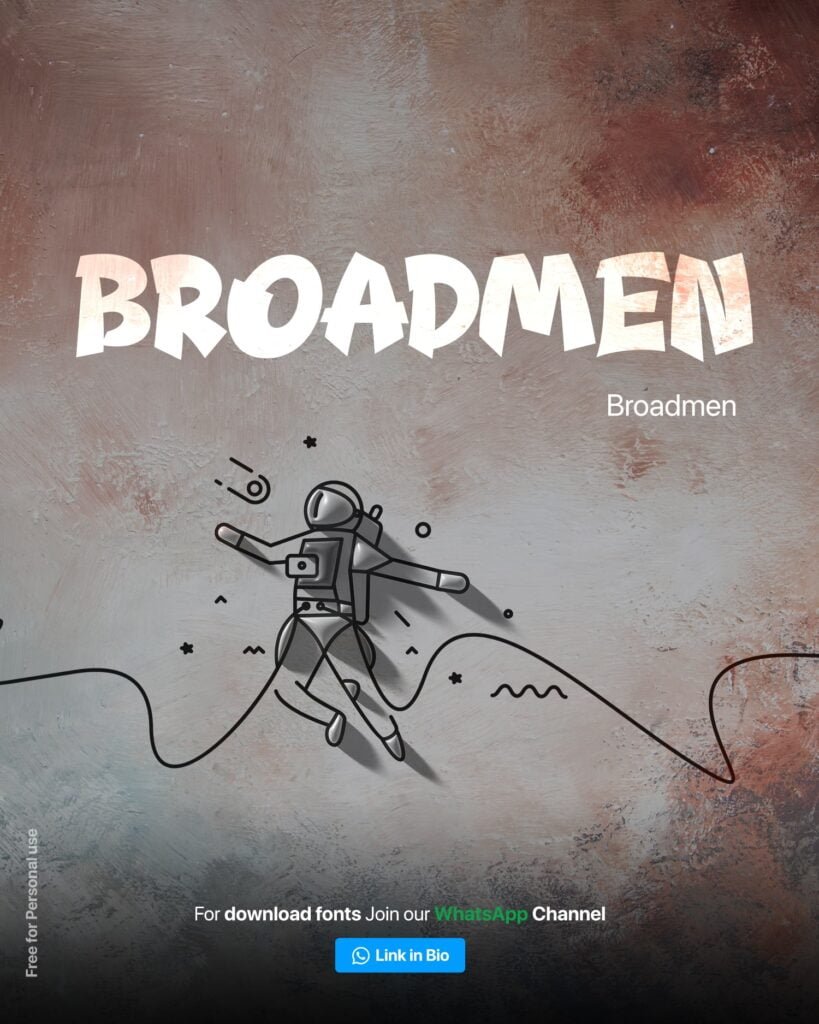
Broadmen font
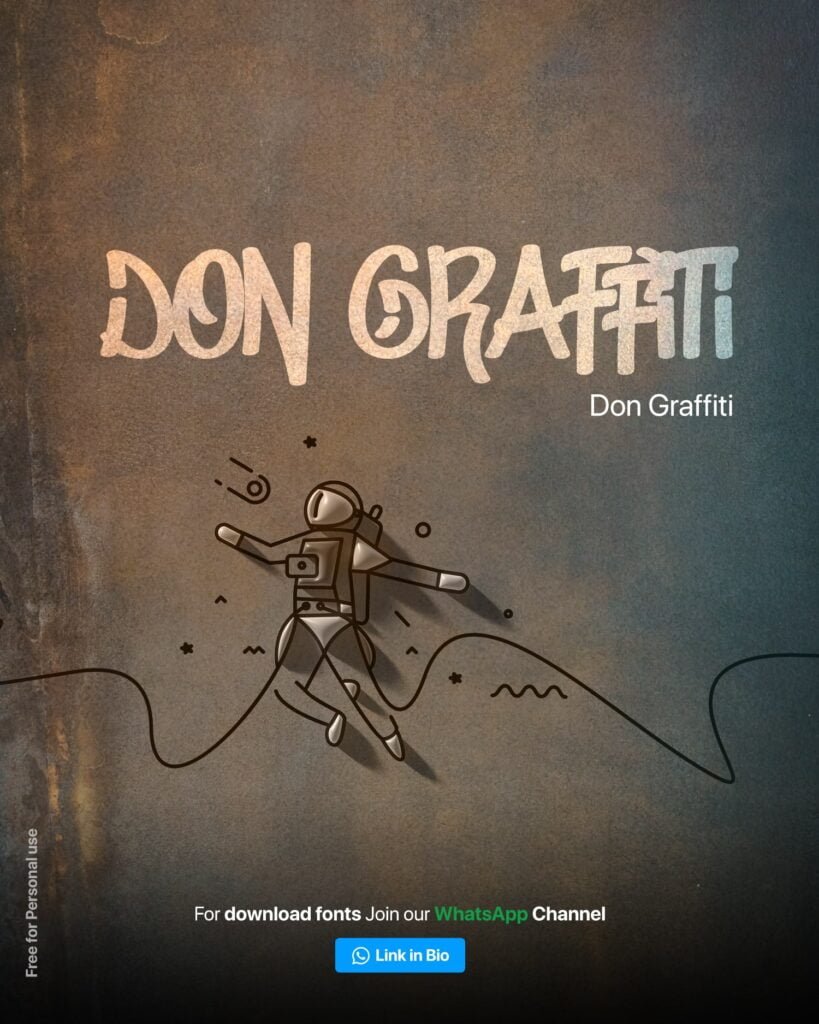
Don Graffiti font
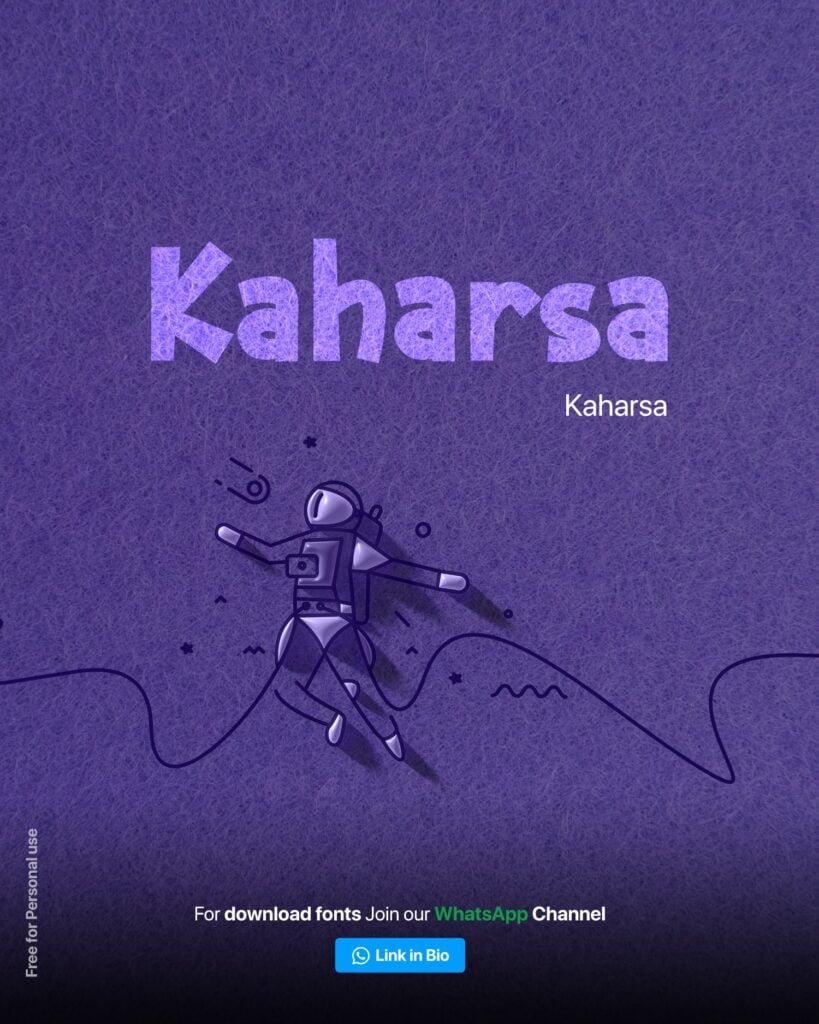
Kaharsa font
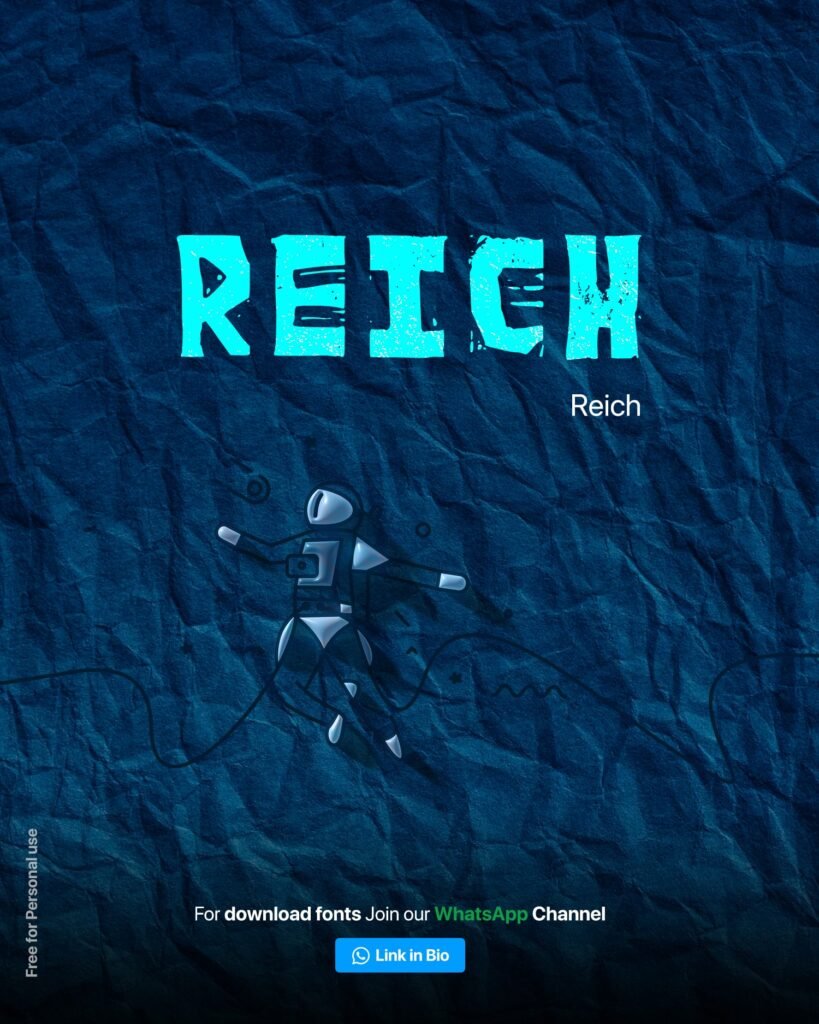
Reich Font
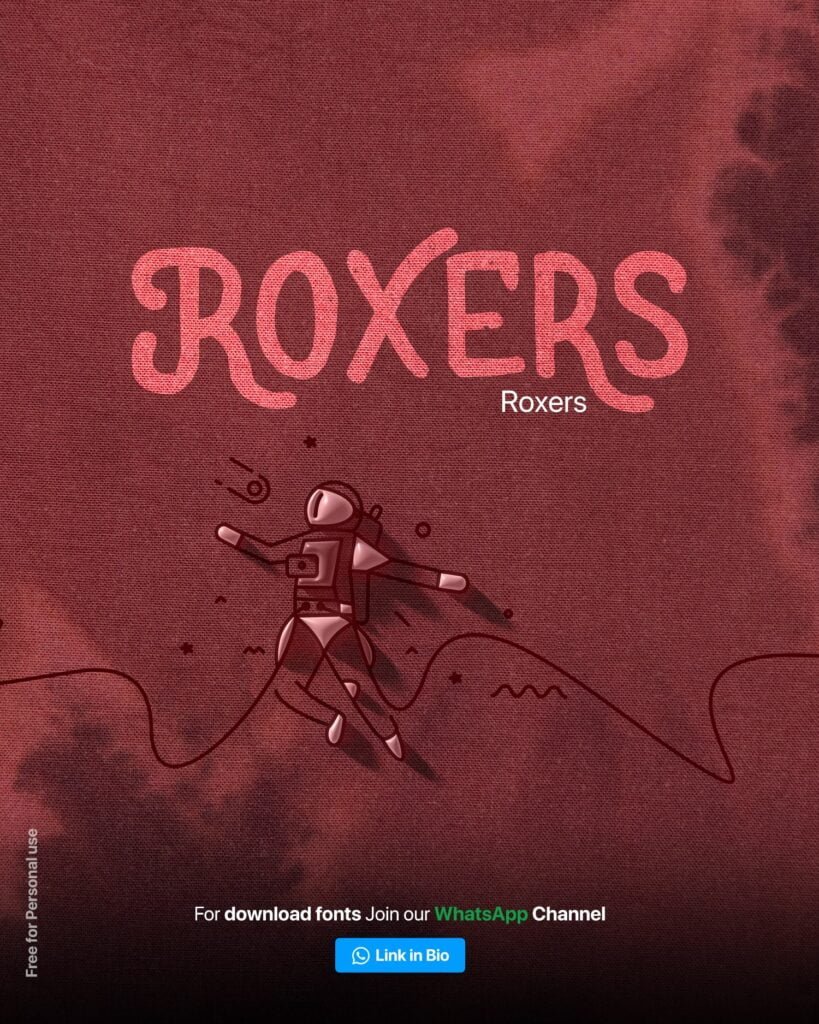
Roxers Font
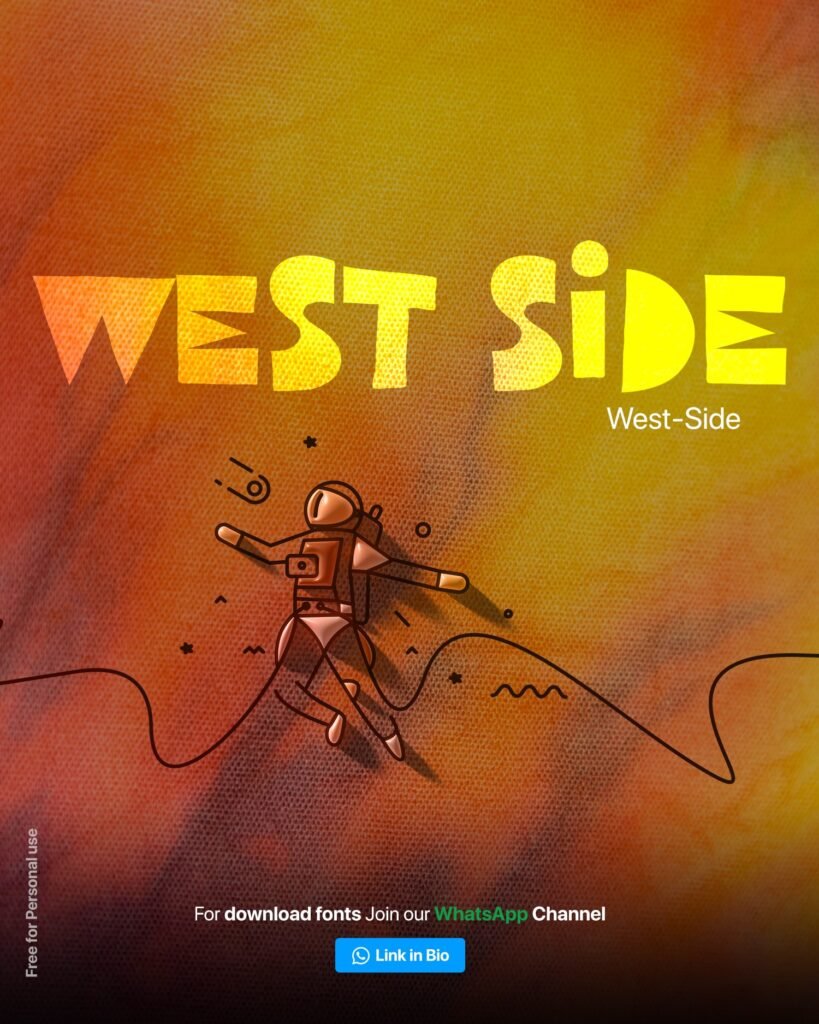
West Side Font
Uses of Graffiti Fonts
Social Media Graphics: These fonts are perfect to be used for creating eye-catching, dynamic posts for platforms like Instagram or Twitter, especially targeting a younger, trend-conscious audience.
Album Covers: Graffiti fonts have become common in album artwork, especially when dealing with hip-hop, punk music, or electronic music.
Event Flyers: Graffiti fonts are used in almost every poster announcing music festivals, hip-hop events, and underground concerts to create an atmosphere that the identified culture of the city can associate with.
Streetwear Branding: These fonts are often used in urban fashion brands to communicate edginess and street credibility.